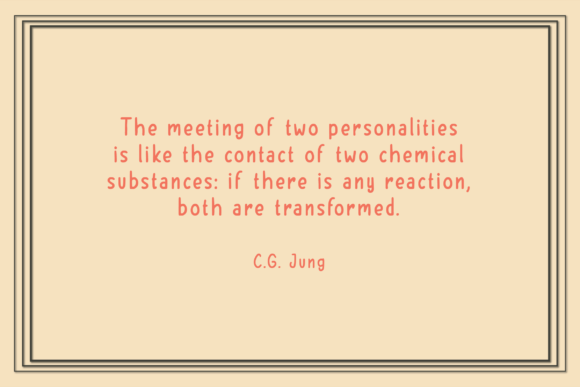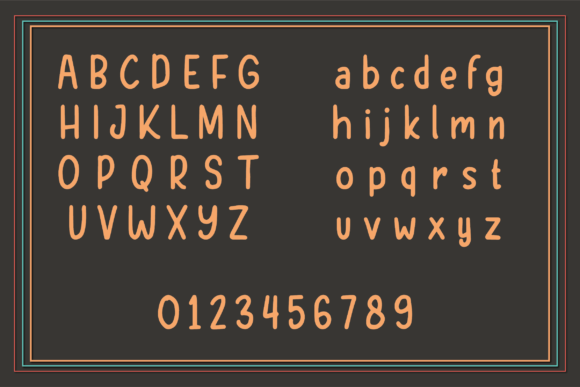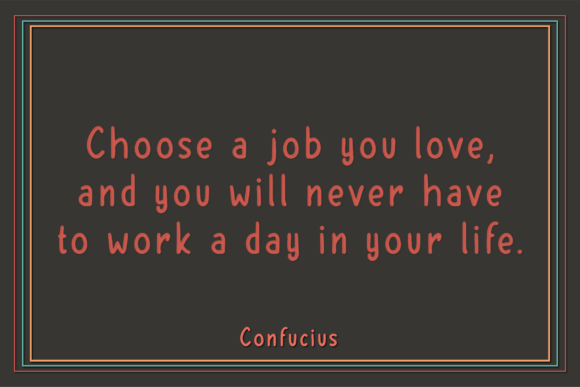
Hello Sunday Font
About Hello Sunday Font
Hello Sunday is a beautiful and attractive handwritten font. The curves in each arrangement make it look unique and natural. It also looks good when used as quotes, diaries, books, posters, and invitations.